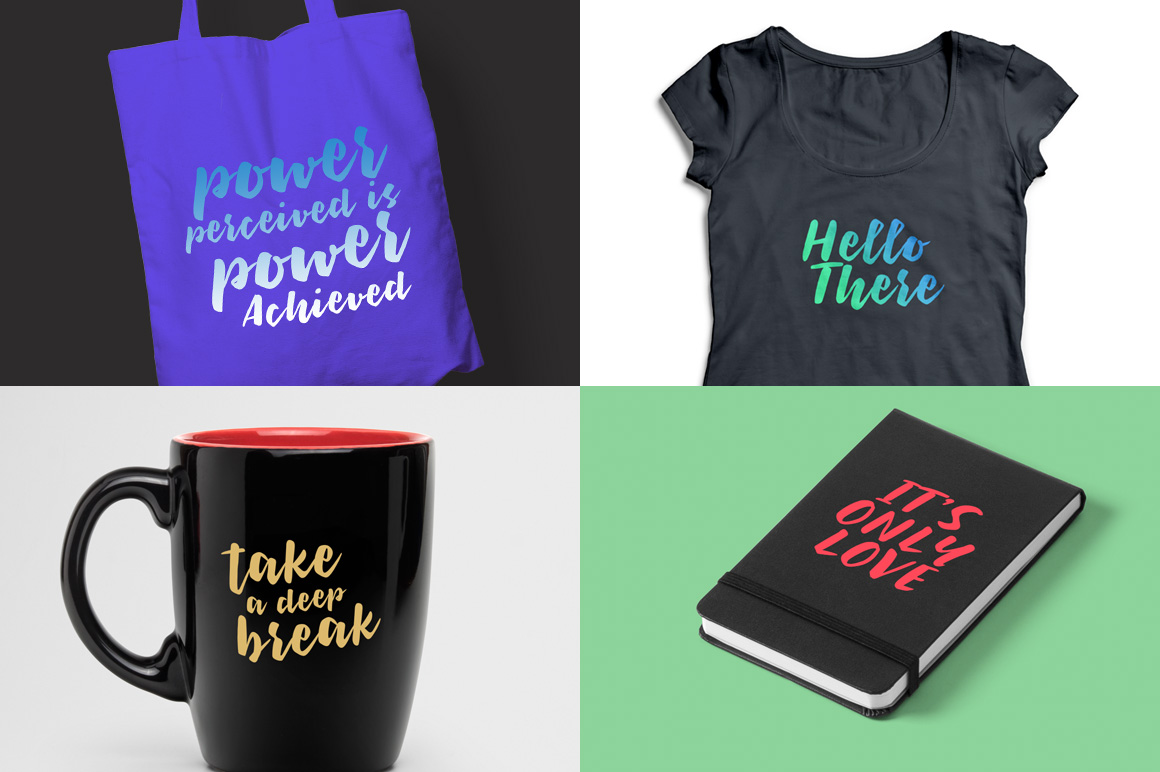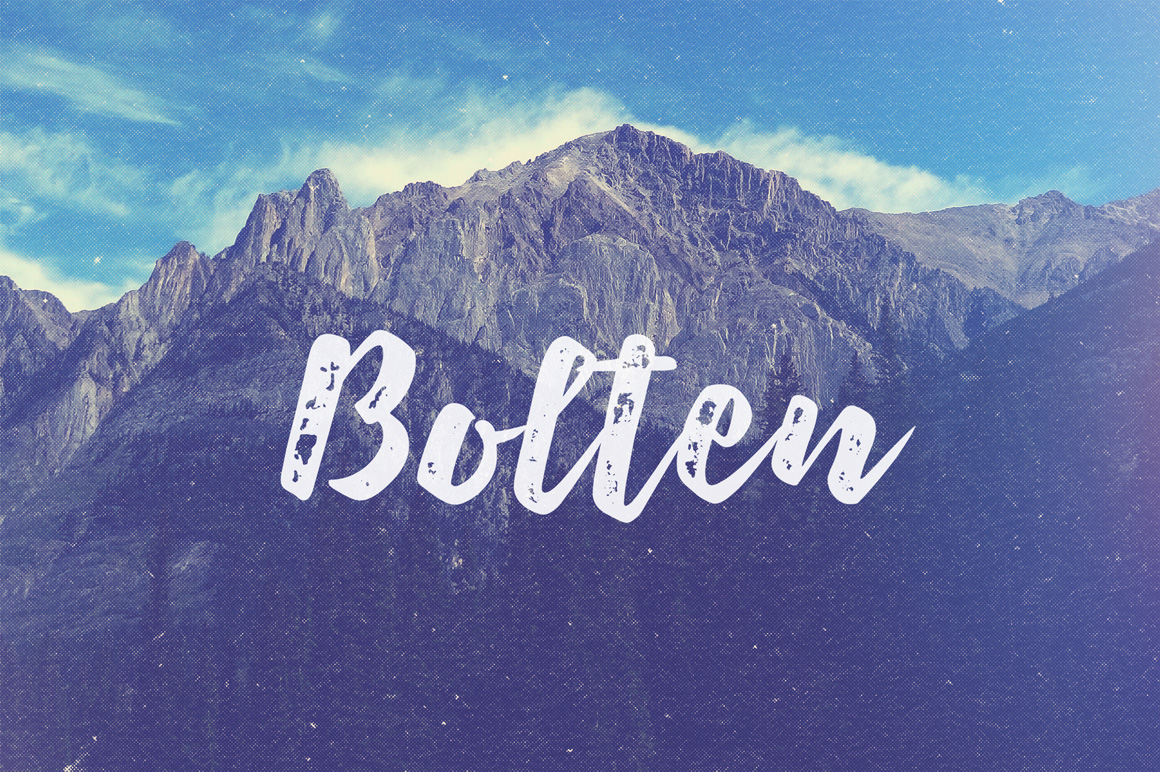
Bolten Script
Bolten Script Font
Bolden typeface Comes up in two styles: Regular and Rough. You can choose which one that fits your design style. Bolden Regular can be used for signage, poster, t-shirt design, etc. And if you are working on vintage-themed design, you can prefer to use Bolten Rough which is have the rough texture that captures the look of letterpress printing.